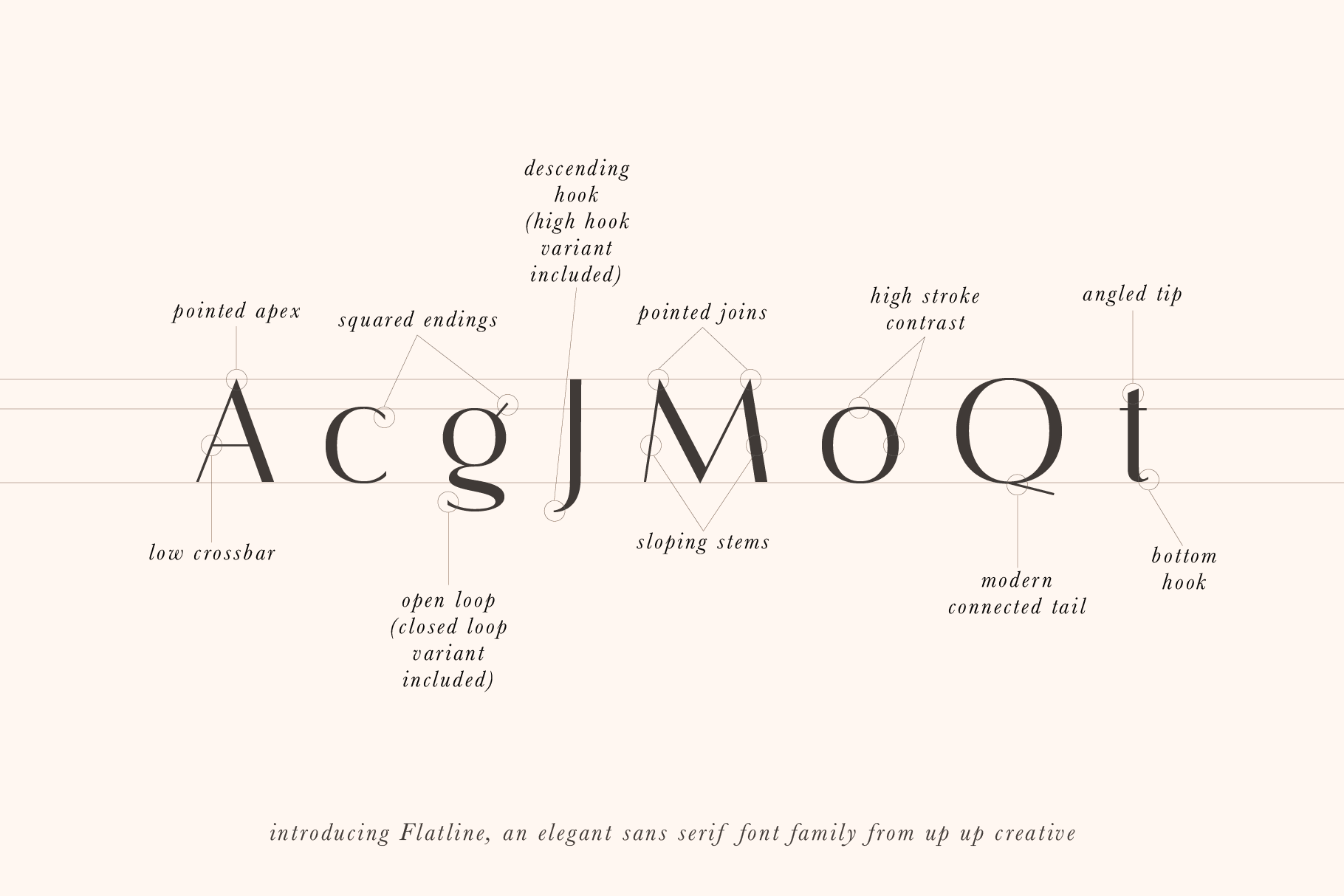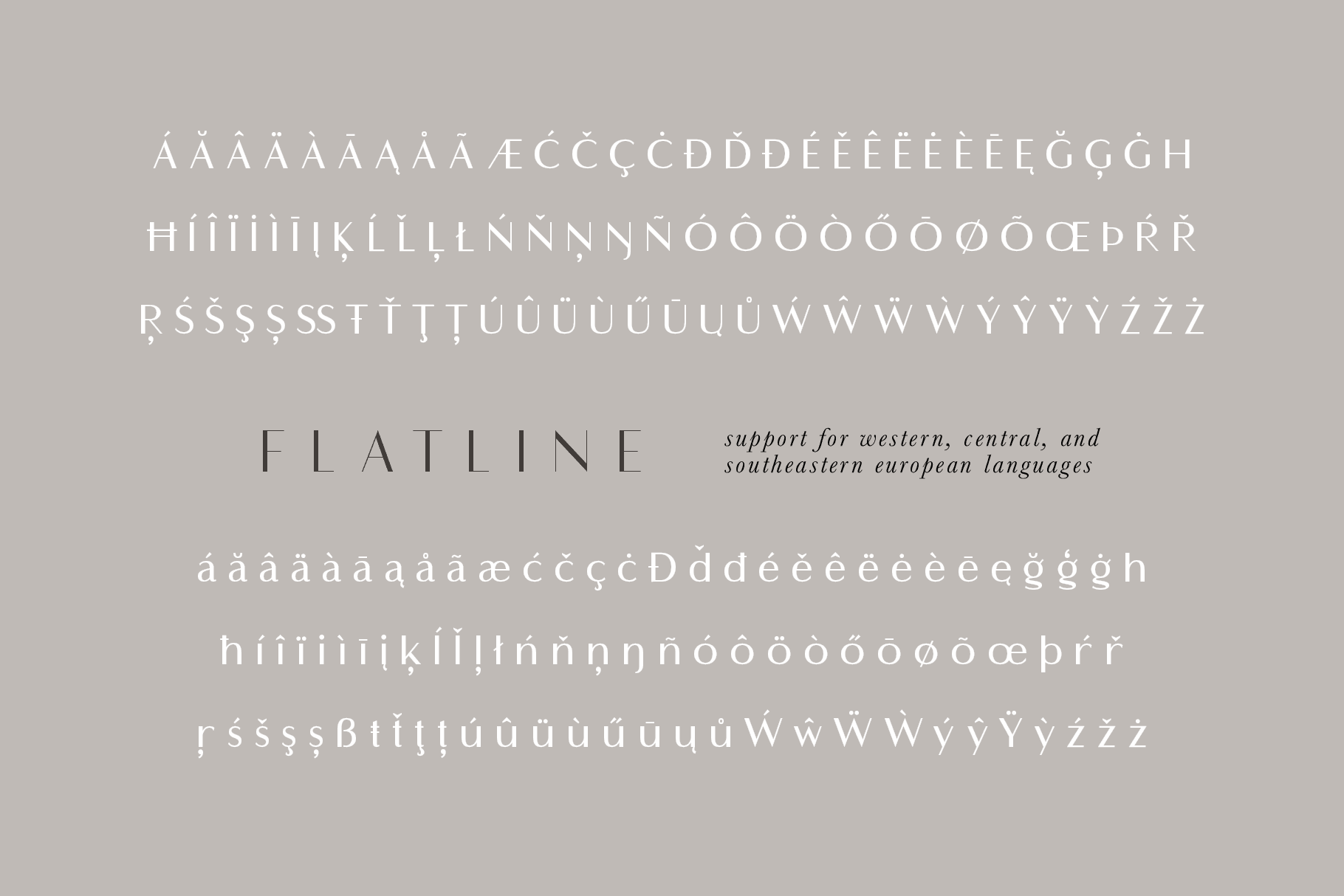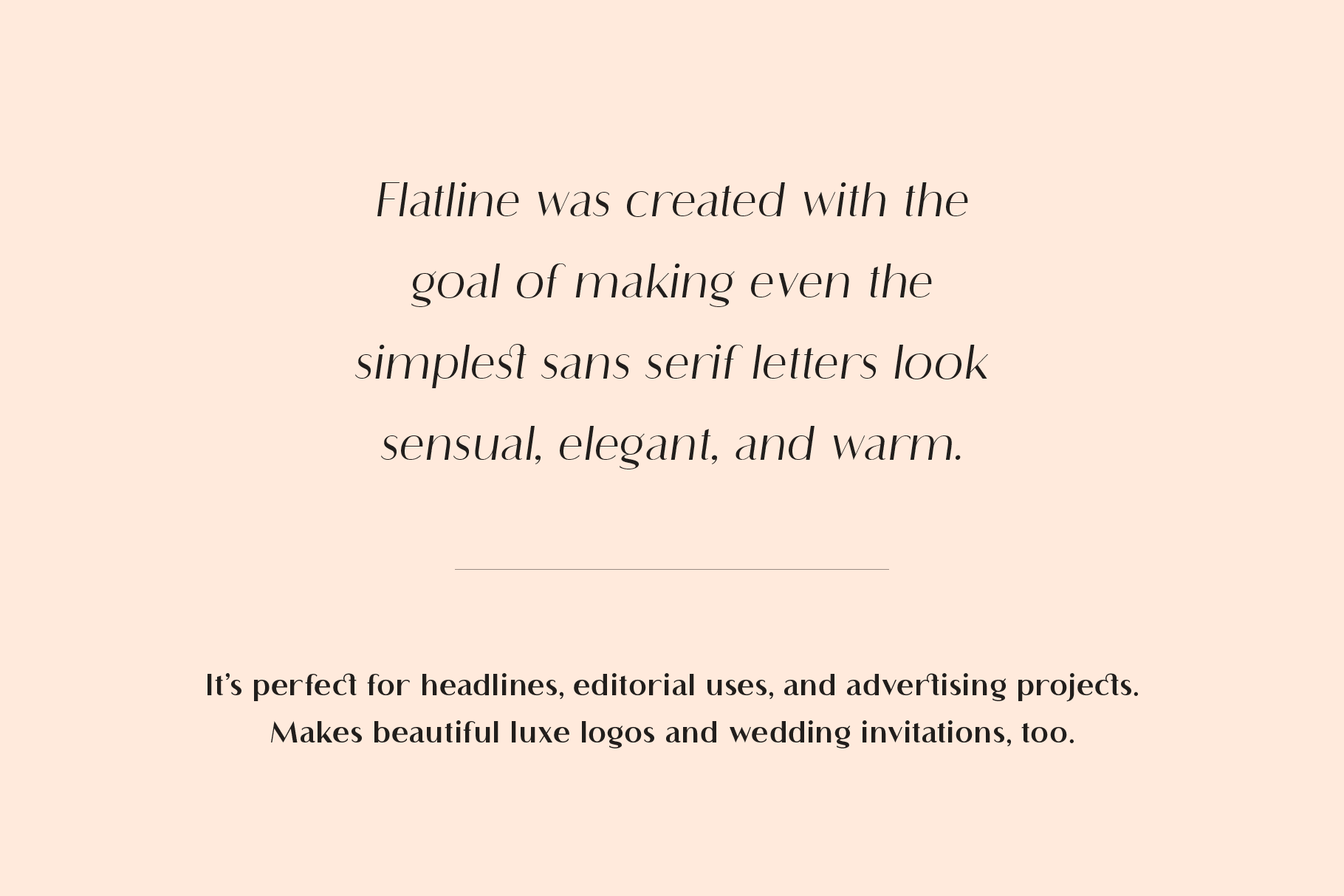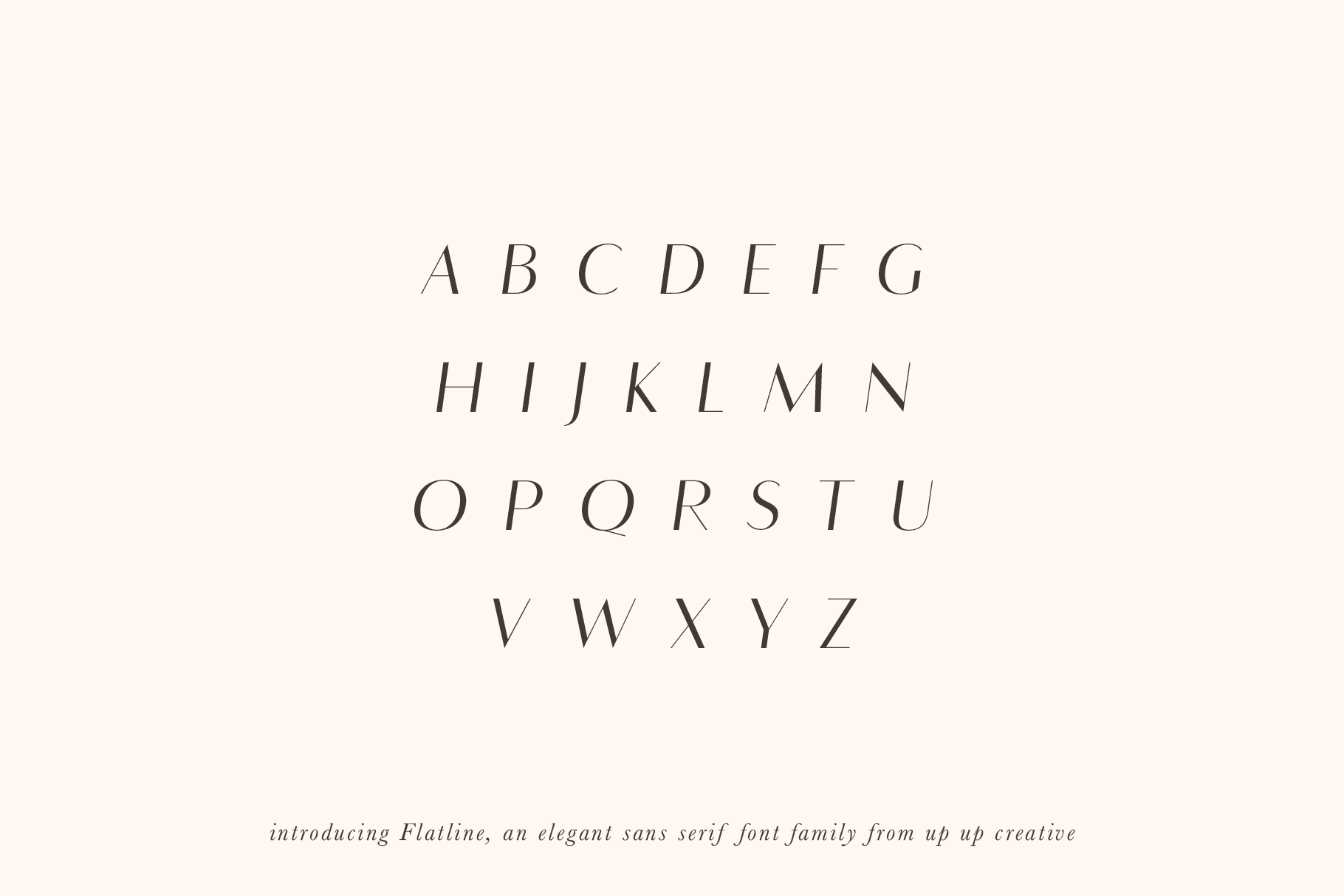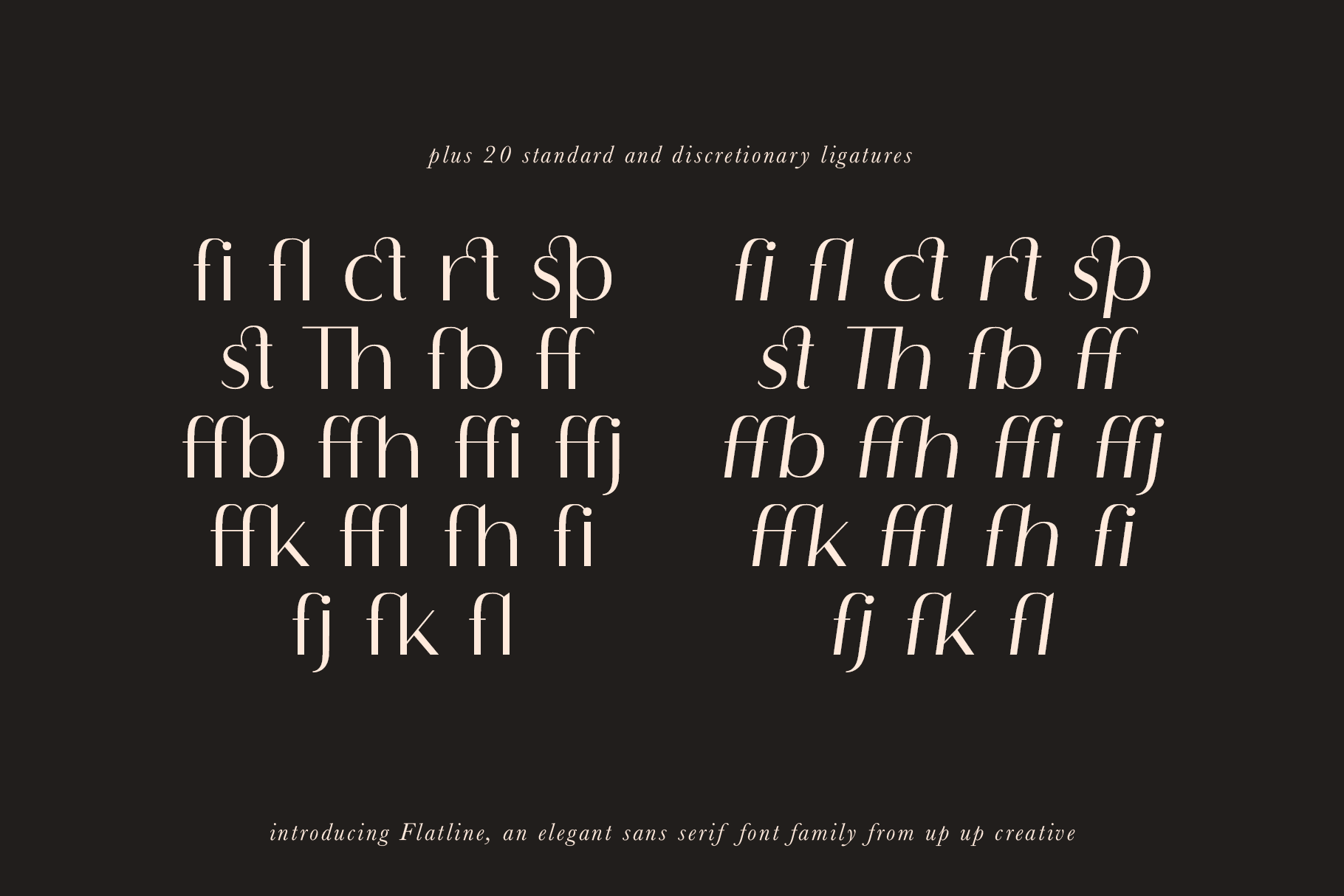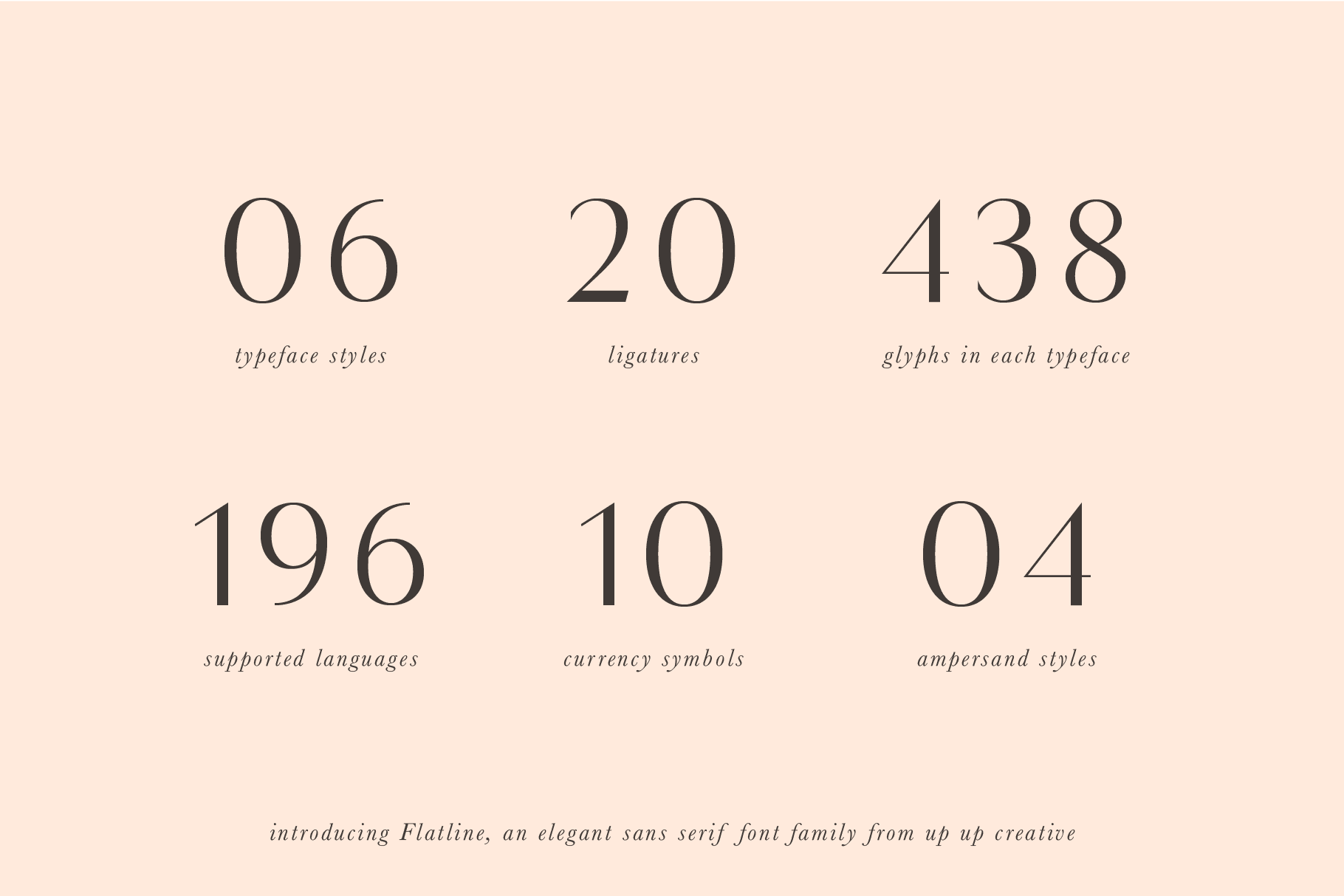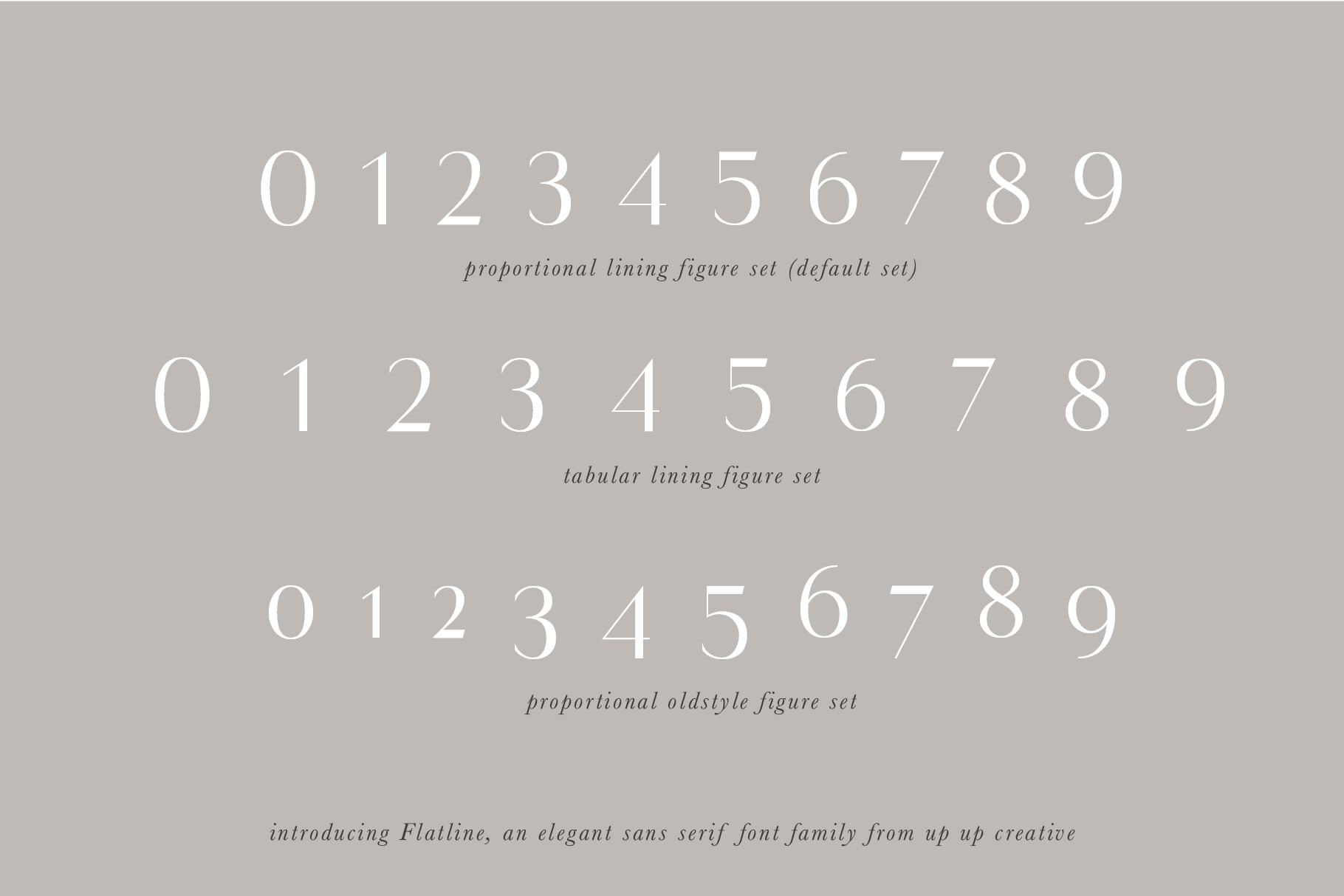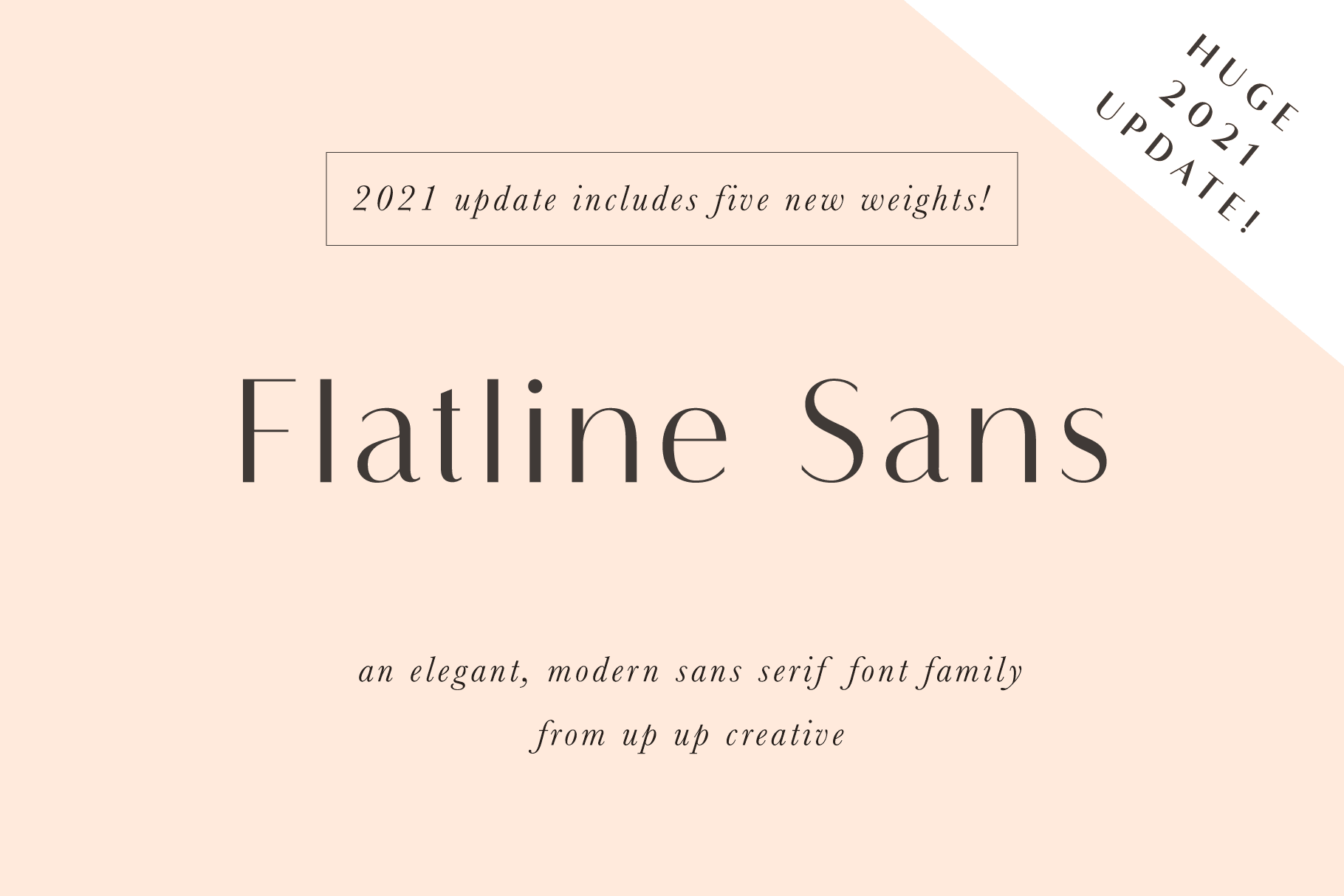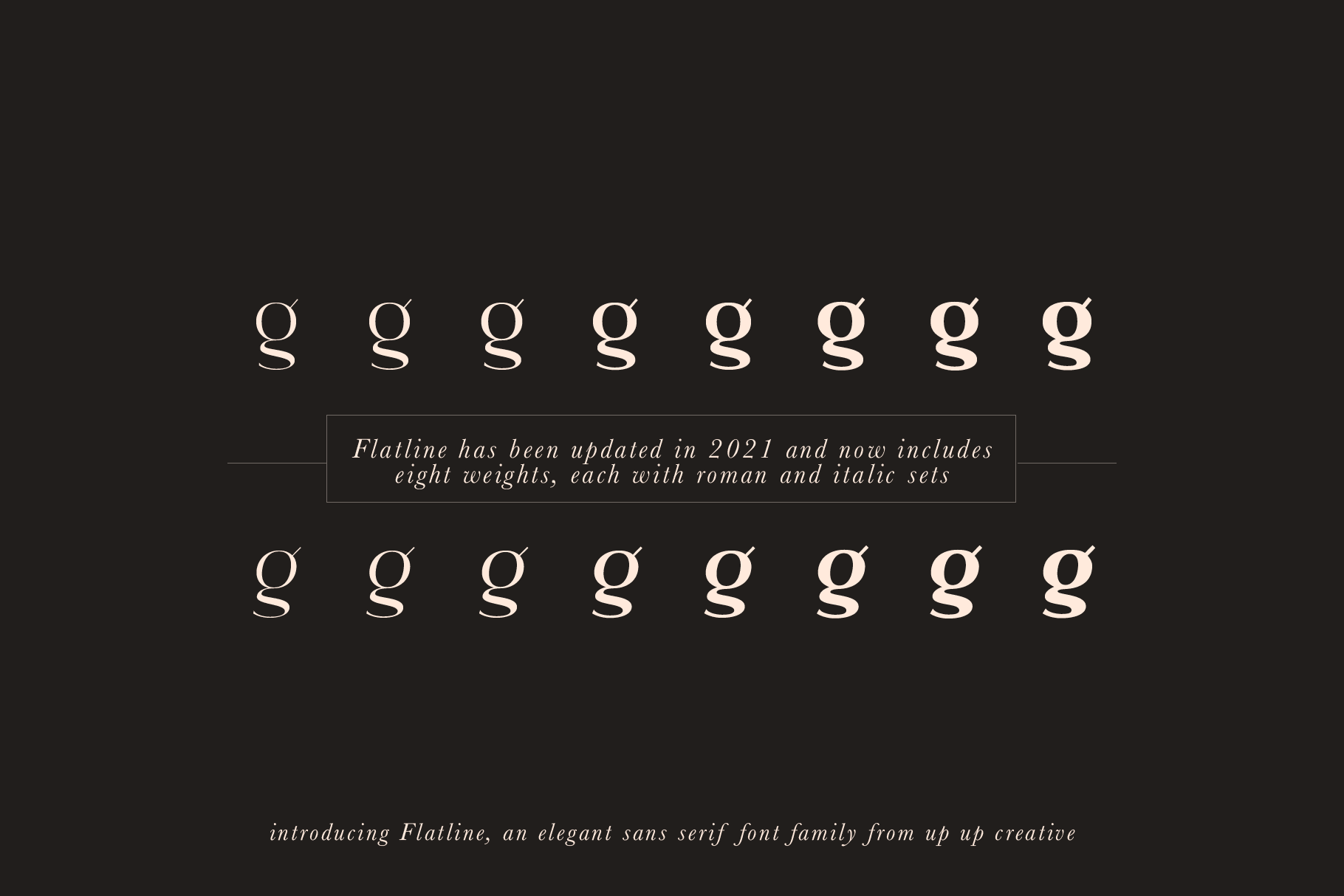
Flatline Sans Font Family
Flatline Sans is an elegant, modern sans serif font family. Meticulously drawn with high contrast between thick and thin strokes with the goal of making even the simplest sans serif letters look sensual, elegant, and warm.
Flatline includes the following OpenType features:
- character variants
- standard and discretionary ligatures
- fractions
- lining figures, oldstyle figures, proportional figures, and tabular figures
- localized forms (multi-language and multi-currency support)
- ordinals and superscripts
Includes 18 ligatures
- Released in 2019
- Includes 453 glyphs
- 8 Weights, each in Regular and Italic